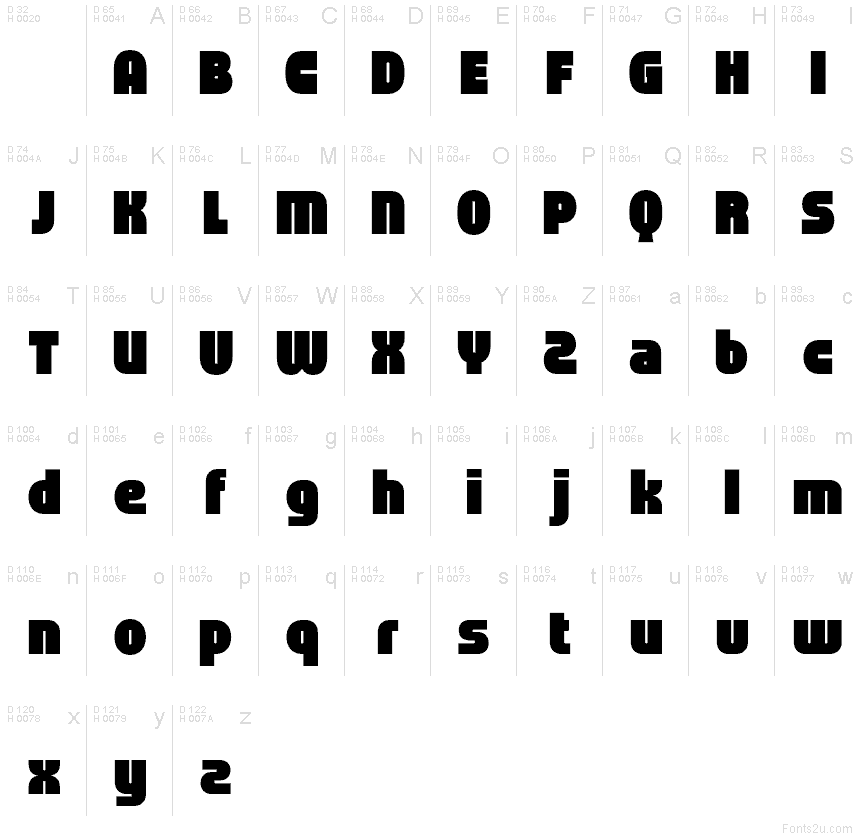
CS Querist Regular Demo
CS Querist font by Craft Supply Co. is a bold free sans serif font with geometric inspiration and evenly proportioned characters. Experience a balanced text visual with neat lines, minimalistic details, and modern appearance suitable for various design needs.
Such a versatile typeface can simultaneously present headings and subheadings, posters, banners, logos, printings on packaging and branding designs.